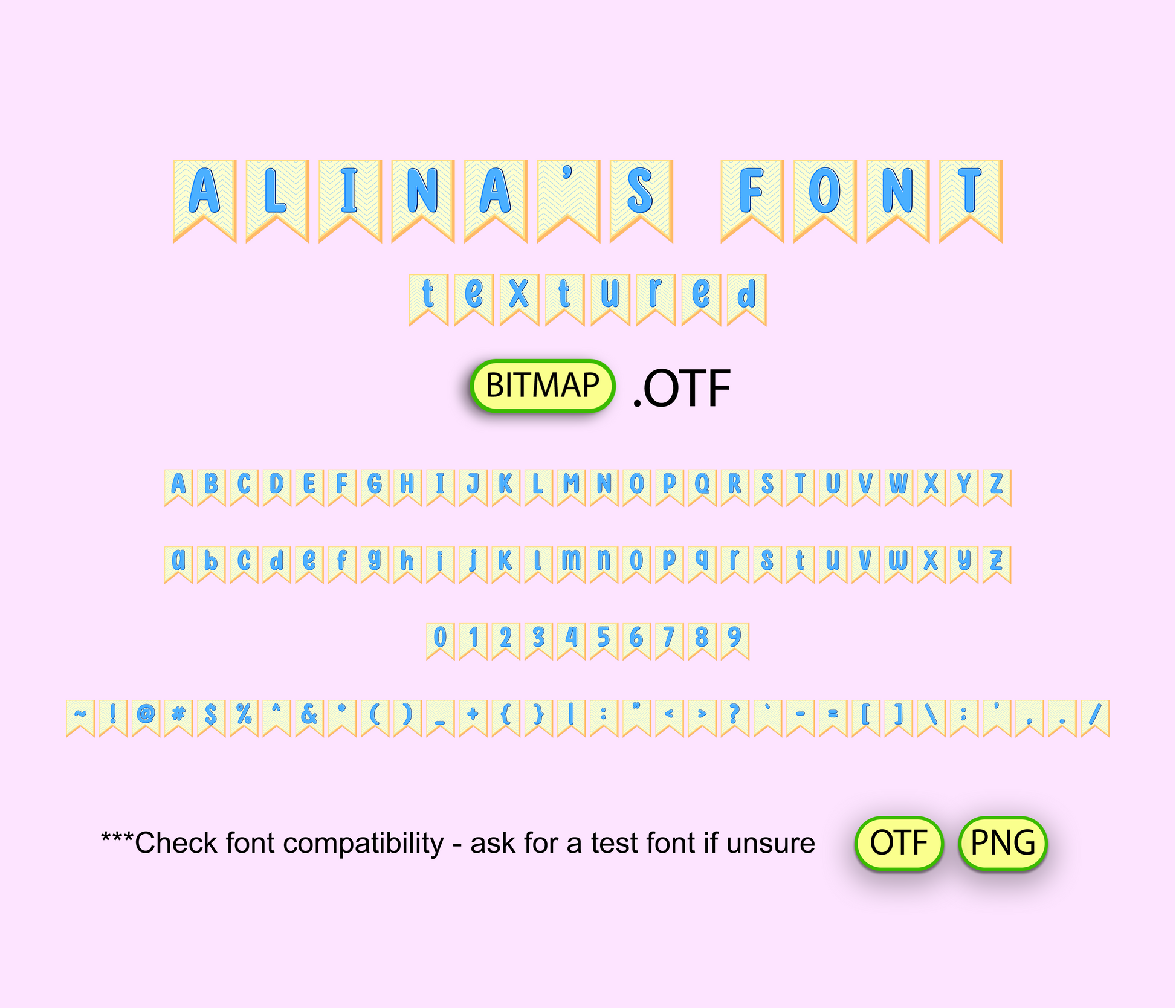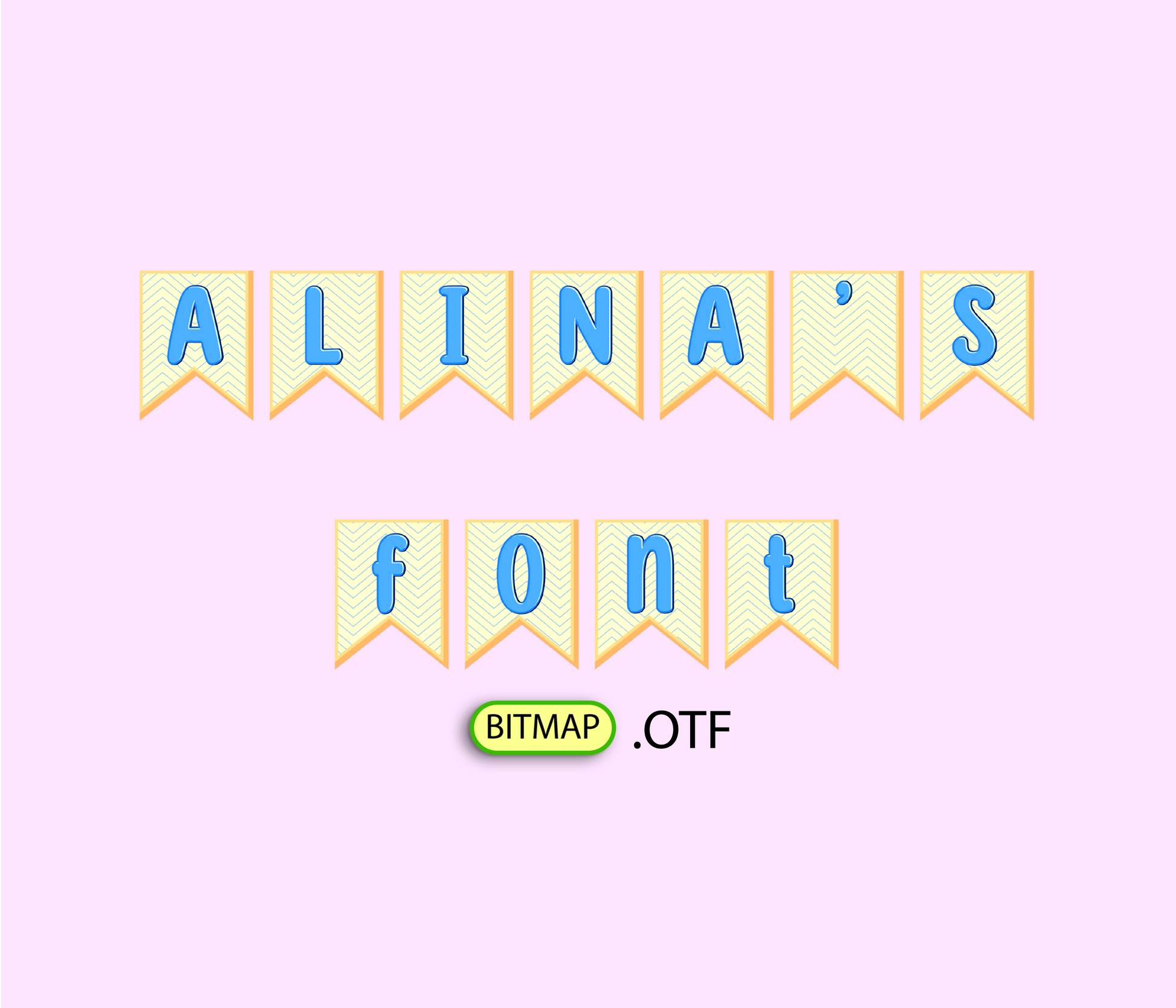
Workshop Hero Dad Banner Font Textured
Step into the sawdust-scented world of tool belt mastery, baby boy adventure announcements, and hands-on family celebration culture with our Workshop Hero Dad Font Textured, capturing the essence of workbench wisdom, little boy curiosity beginnings, and legendary tool shed fatherhood dedication narratives. Perfect for Father's Day gift designers, boy baby shower hosts, DIY culture enthusiasts, little boy party planners, and creative design specialists, this font brings the bold, industrious character of beloved workshop wizard dad and baby boy celebration storytelling to your projects. Create craftsmanship-inspired invitations, commercial goods, or web content with the hands-on presence of tool shed hero and newborn boy festivity narratives.
Industrious Typography for Father's Day, Boy Baby Shower & Little Boy Party Celebration Projects
Our Workshop Hero Dad Font Textured features bold, celebration-banner letterforms nestled in festive pennant flag shapes with workbench-worn textures reflecting the world of legendary tool belt masters, newborn boy welcome festivities, and iconic paternal craftsman dedication.
- Event Promotions: Craft industrious invitations, banners, and party decorations for Father's Day workshop celebrations, boy baby shower gatherings, little boy adventure birthday parties, and family DIY events that radiate the hands-on warmth of legendary tool shed dad and baby boy festivity entertainment
- Merchandise Design: Perfect for apparel, nursery wall prints, adhesive graphics, party favors, and workshop collectibles that showcase the rugged aesthetic of tool belt mastery, newborn boy welcome, and paternal craftsman dedication themes
- Digital Media: Build up websites, content channels, and social platforms with industrious header designs and imagery that express the hands-on wonder of legendary Father's Day workshop heroes, boy baby shower announcements, and little boy party celebrations
- Creative Content: Add signature workbench and baby boy flair to dad illustrations, shower artwork, and imaginative projects inspired by beloved tool shed craftsman dad and newborn boy welcome chronicles
- Personal Projects: Hammer handcrafted paternal warmth and baby boy joy into memory albums, DIY gifts, nursery decorations, and living space items inspired by the world of legendary workshop hero dad and newborn celebration characters
Our font pays tribute to the world of tool shed wonder, newborn boy celebration culture, and generation-spanning workshop craftsman fatherhood dedication, empowering your projects with its bold and hands-on industrious character. Whether crafting Father's Day materials, designing boy baby shower décor, creating little boy party supplies, or adding a tool belt hero touch to personal projects, this font communicates the rugged essence of family celebration magic. Ready to build paternal and baby boy festivity into your creations? This font is your key to attention-grabbing, impactful design.